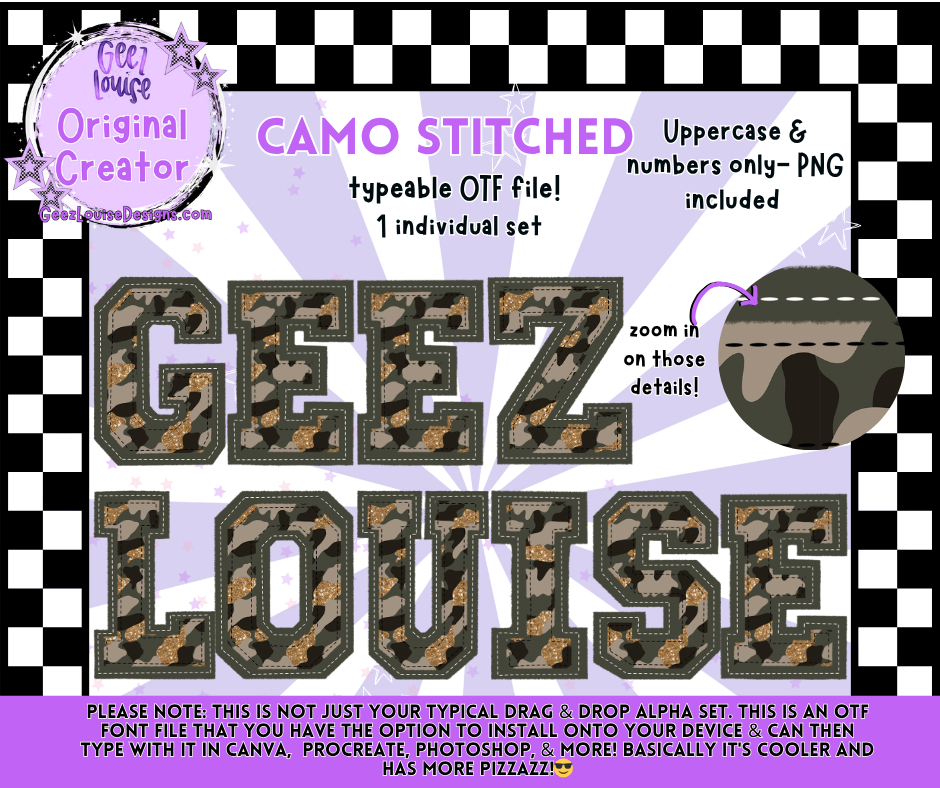
Camo Stitched Typeable OTF Font + PNG Set
Give your projects that rugged, hand-crafted look with the Camo Stitched Typeable OTF Font! 🪡
This typeable OTF file combines camo texture with realistic stitched detailing for a bold, dimensional finish. Install it directly onto your device and type in Canva, Procreate, Photoshop, and more — no drag-and-drop alpha needed! Each uppercase letter and number is designed with layered fabric-inspired edges and subtle stitch lines for a perfectly finished look.